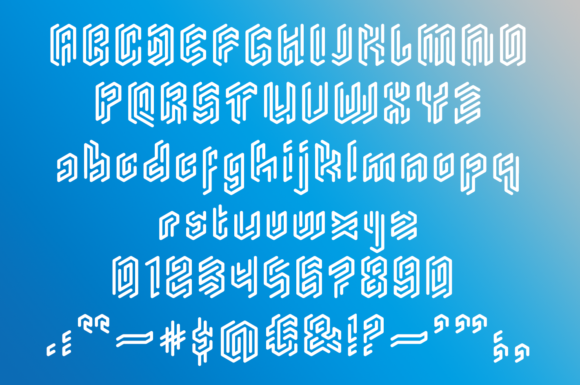
Monogram Rounded Font – Free Download
Introduction to Monogram Rounded Font
Monogram Rounded is a fun and bold display font that will easily make any design stand out.
| 👤 Author | Studio Dot by dot |
Monogram Rounded is a fun and bold display font that will easily make any design stand out.
Key Features of Monogram Rounded Font
Why Choose Monogram Rounded Font?